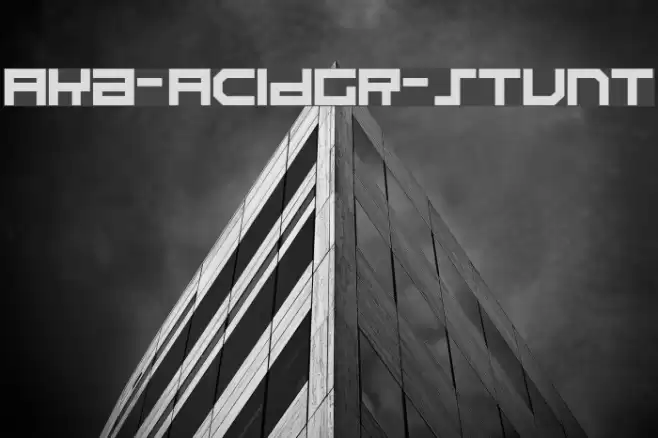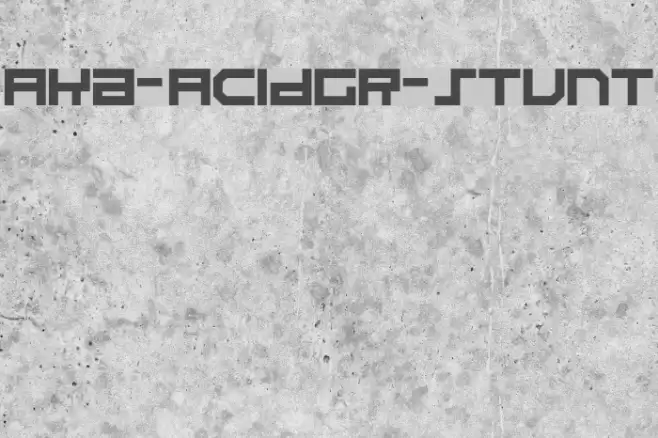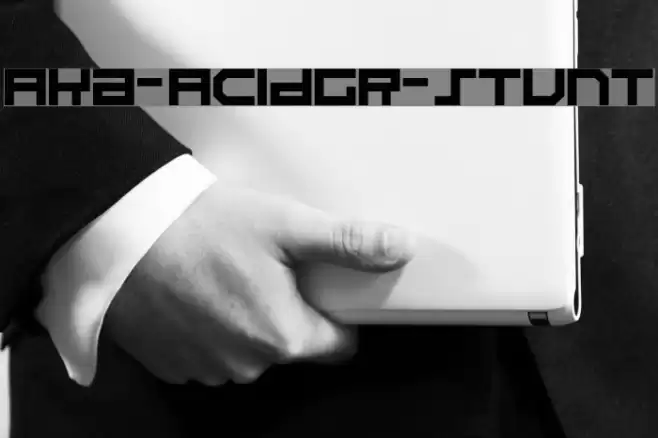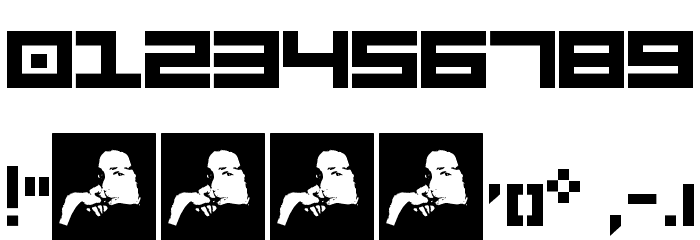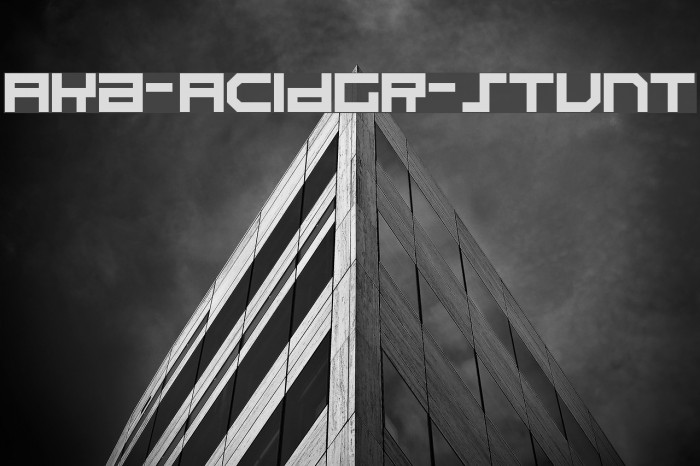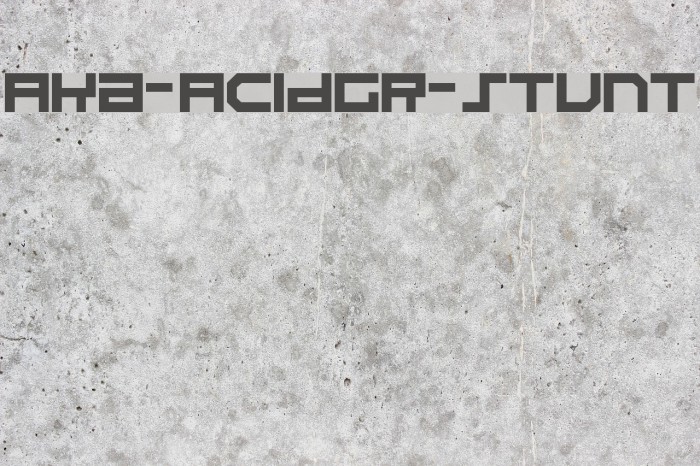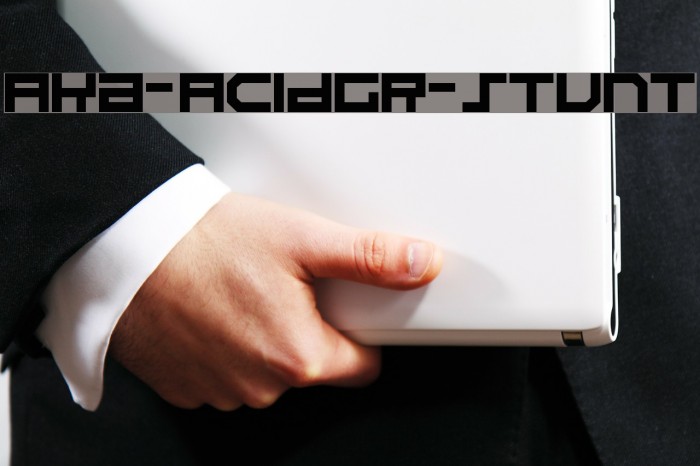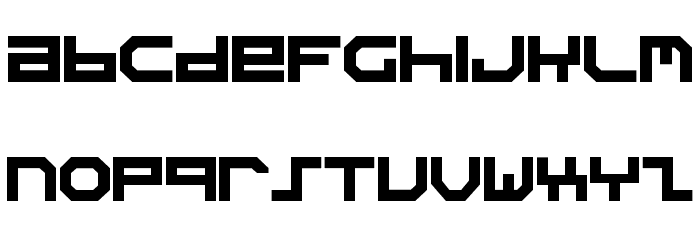
Aka-AcidGR-Stunt Font
Aka-AcidGR-Stunt Description
This font features a bold, geometric design with a futuristic and digital aesthetic. The characters are constructed with sharp angles and straight lines, giving them a blocky and robust appearance. The uppercase and lowercase letters maintain a consistent style, with the lowercase slightly smaller but equally bold. Numbers and special characters follow the same design principles, ensuring uniformity across all glyphs. The font's unique style makes it stand out, perfect for projects that require a modern and edgy look.
A bold, geometric font with a futuristic, digital style from Uncategorized fonts.
- Proposed Projects: Ideal for technology-themed designs, video game graphics, sci-fi movie posters, and modern branding projects.